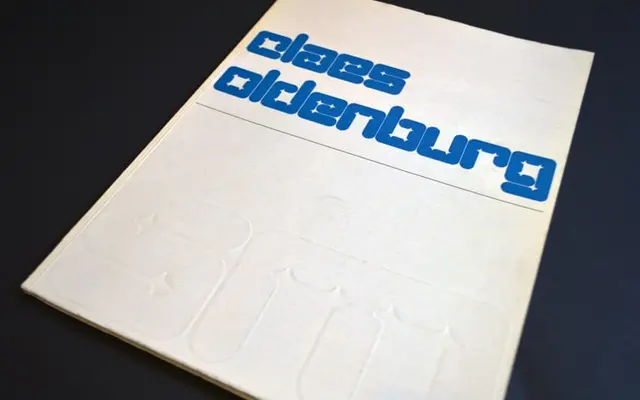
Architype Catalogue Soft Solid
The Foundry Types · Wim Crouwel · 1996
A single-weight display typeface drawn from Wim Crouwel's 1970 Stedelijk museum catalogue for a Claes Oldenburg exhibition, with soft, padded letterforms that mimic the sculptor's own aesthetic.
Originally cut by hand from pink paper by Crouwel to reflect Oldenburg's soft sculpture work, the typeface was digitised by The Foundry in collaboration with Crouwel following a 1996 agreement. The letterforms are built on Crouwel's characteristic strict grid but given rounded, inflated counters and edges that distinguish it sharply from his harder geometric work. A companion outline variant, Architype Catalogue Soft Outline, is available separately.
Grid-based letterforms with deliberately rounded, 'padded' outlines derived from Crouwel's experimental Stedelijk museum catalogue work; firmly display in intent with no text-weight application.